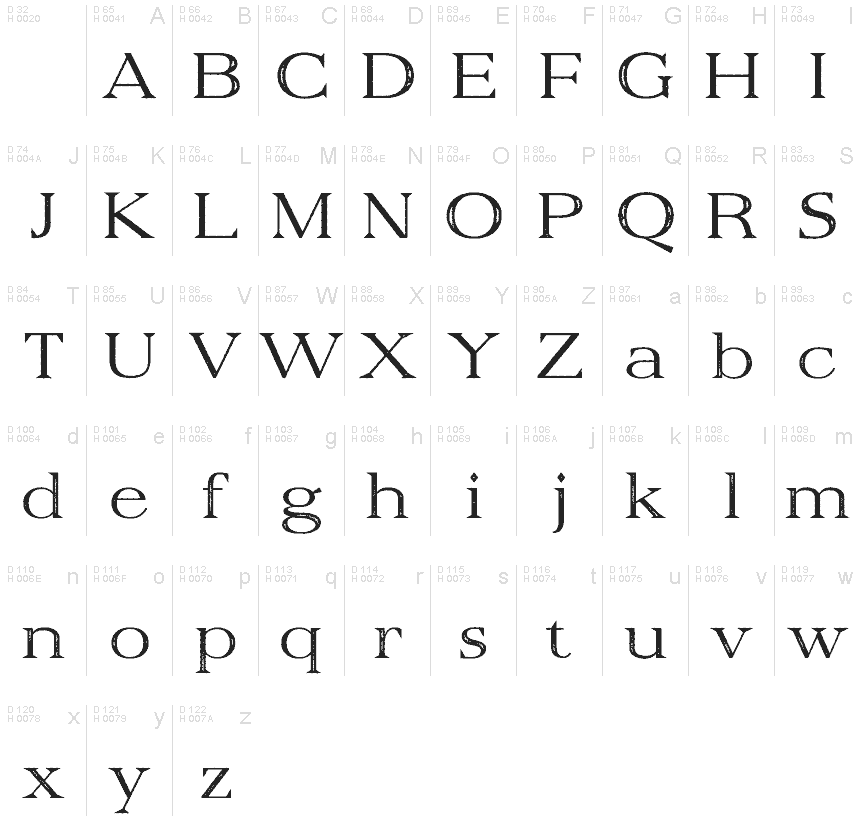
Belinzie Stamp font by Craft Supply Co is a thin expanded serif font inspired by classic typography. A distressed texture of different intensities is present in all the letters, giving them a vintage aesthetic. Even with that rugged appearance, the characters maintain a sophisticated feel and generally convey a classy and stylish appeal.
Belinzie is great for retro-style badges, signs, and posters. Use it on classy apparel designs like t-shirts or on packaging projects involving boxes or wrapping papers. Even book covers, album covers, magazine covers, DVDs/CDs can look good with it! Try it on labels for cans and bottles as well as brand or restaurant logos.